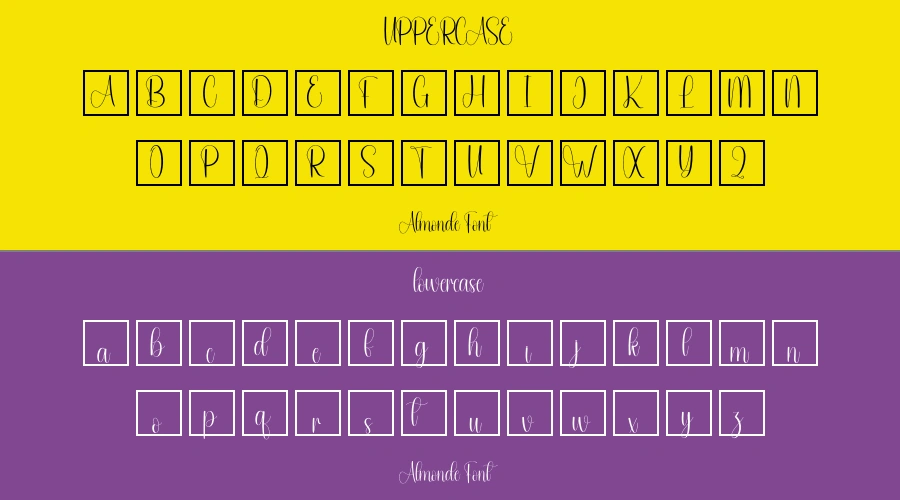
About Almonde Font
When typographic excellence matters most, Almonde Font delivers through its thoughtful blend of ball terminals and functionality. Specially crafted for branding projects, it offers the clarity and uniqueness required for sophisticated design work. Every detail serves a purpose.
The character set showcases thoughtful details like commanding presence alongside functional word-end alternates. This proves especially valuable in marketing collateral, where detail preservation directly influences results. Particular attention was paid to loop structure and cultural relevance during development.